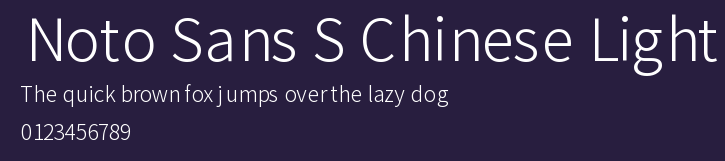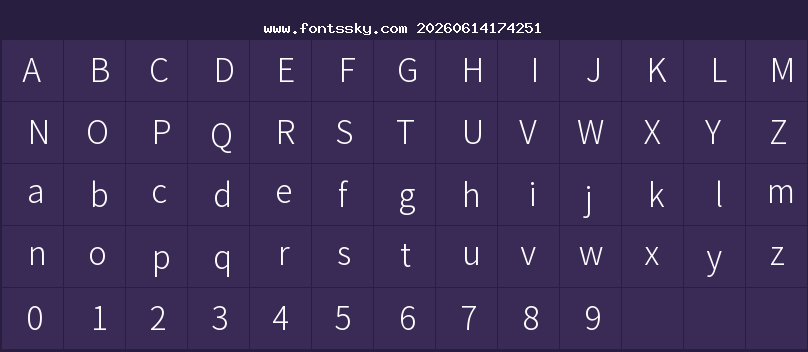
• Font Name: Noto Sans S Chinese Light
• Font ID: Noto Sans S Chinese Light:Version 1.00
• Full Font Name: Noto Sans S Chinese Light
• Version: Version 1.00 November 20, 2017, initial release
• PostScript Name: NotoSansSChinese-Light
• Character Count: 30786
• Designer: Ryoko NISHIZUKA 西塚涼子 (kana & ideographs); Paul D. Hunt (Latin, Greek & Cyrillic); Wenlong ZHANG 张文龙 (bopomofo); Sandoll Communication 산돌커뮤니케이션, Soo-young JANG 장수영 & Joo-yeon KANG 강주연 (hangul elements, letters & syllables)
• Manufacturer: Adobe Systems Incorporated
• Description: Dr. Ken Lunde (project architect, glyph set definition & overall production); Masataka HATTORI 服部正貴 (production & ideograph elements)
About Noto Sans S Chinese Light.ttf
Noto Sans S Chinese Light.ttf is a modern, elegant sans-serif font designed for ultimate readability and visual harmony. Perfect for branding, headlines, web design, and print materials.